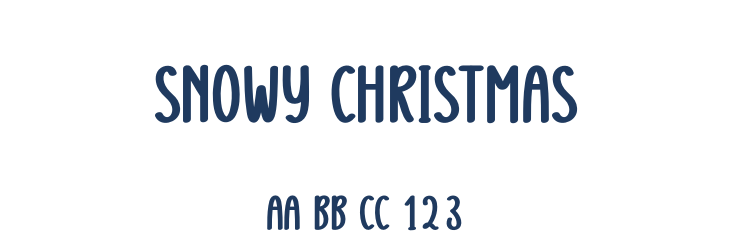
SnowyChristmas Font
A playful, snowy-themed font with a hand-drawn, textured appearance.
Darrell Flood
A whimsical, italicized font with starry sparkles, perfect for festive designs.
Snowy Sparkles Font
Darrell Flood
A playful, starry font with bold, rounded characters and embedded sparkles.
Snowyland Font
A playful handwritten font with smooth curves and a casual, friendly style.